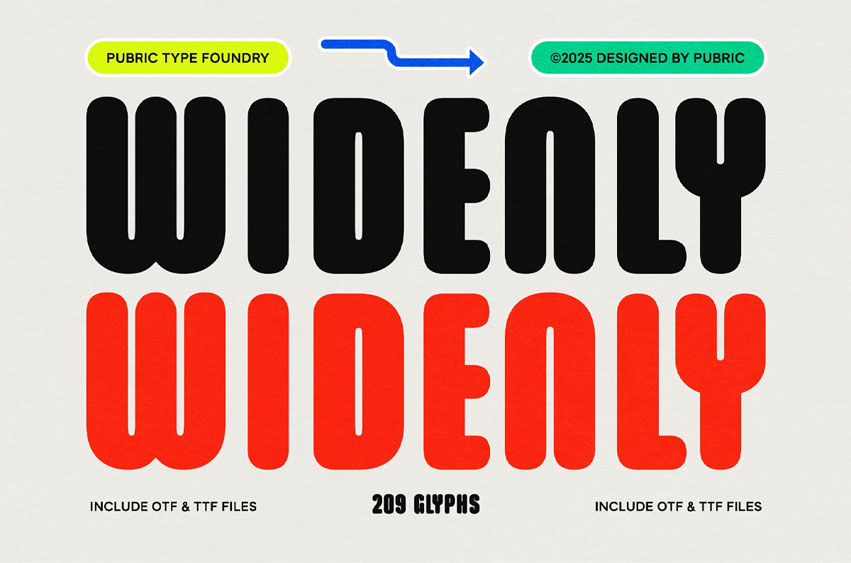
Widenly Font
Widenly Font is an experimental font with thick, wobbly, condensed letterforms that create a strong, firm yet friendly impression. Perfect for posters, logos, headlines, and bold, attention-grabbing designs.
Ideal for headlines, logos, editorials, packaging, quotes, films, games, album covers, books, and promotional materials. This font ensures your design stands out in any setting.